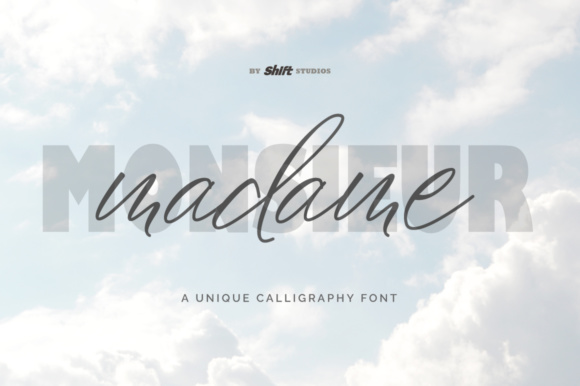
Say hello to Madame Font, a dazzling script font that will ignite your designs with its captivating irregularity and playful bounce. This masterpiece by ShiftStudios is a true game-changer, specifically tailored to deliver that authentic handwritten charm, giving your projects an intimate and personal touch.
With its spontaneous and unique strokes, Madame Font breathes life into your words, transforming them into captivating expressions of your creativity. Its free-spirited nature makes it the perfect choice for displays and headers that demand attention. Whether you're crafting an eye-catching poster or designing an unforgettable invitation, Madame Font envelops your message with a sense of warmth and authenticity.
Step into a world of endless possibilities with Madame Font. Its versatility knows no bounds, seamlessly adapting to a myriad of design projects. Create stunning blog headers that resonate with your readers, captivating social media posts that leave a lasting impression, and eye-catching product labels that entice customers. Madame Font is the ultimate tool to unleash your creativity and make an indelible mark.
Dive into a world of distinctive branding experiences with Madame Font. Its lively strokes add a touch of whimsy and elegance to logos, etching your brand identity into the minds of your audience. From enchanting wedding invitations that evoke emotions to vibrant posters that ignite imaginations, Madame Font transforms ordinary designs into captivating masterpieces.
Experience the transformative power of Madame Font today and witness how effortlessly it elevates your designs to new heights. With its captivating irregularity and bouncy charm, this script font will leave an unforgettable impression on your audience and establish a lasting connection with your brand. Embrace the magic of Madame Font and unlock a world of creative possibilities.